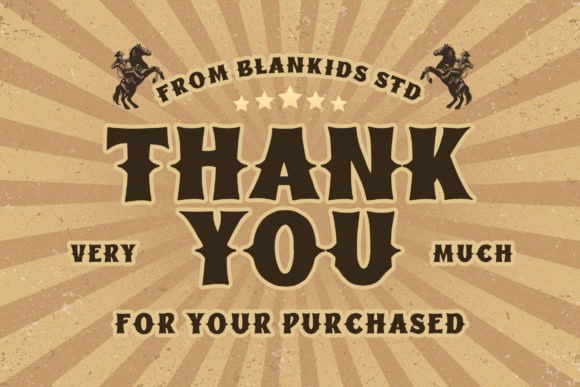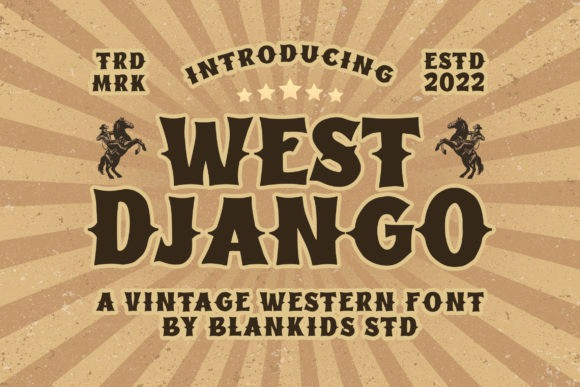
West Django Font
West Django Font feels playfully nostalgic and delivers an incredible vintage aesthetic. Use this font to add that special retro touch to any design idea you can think of!